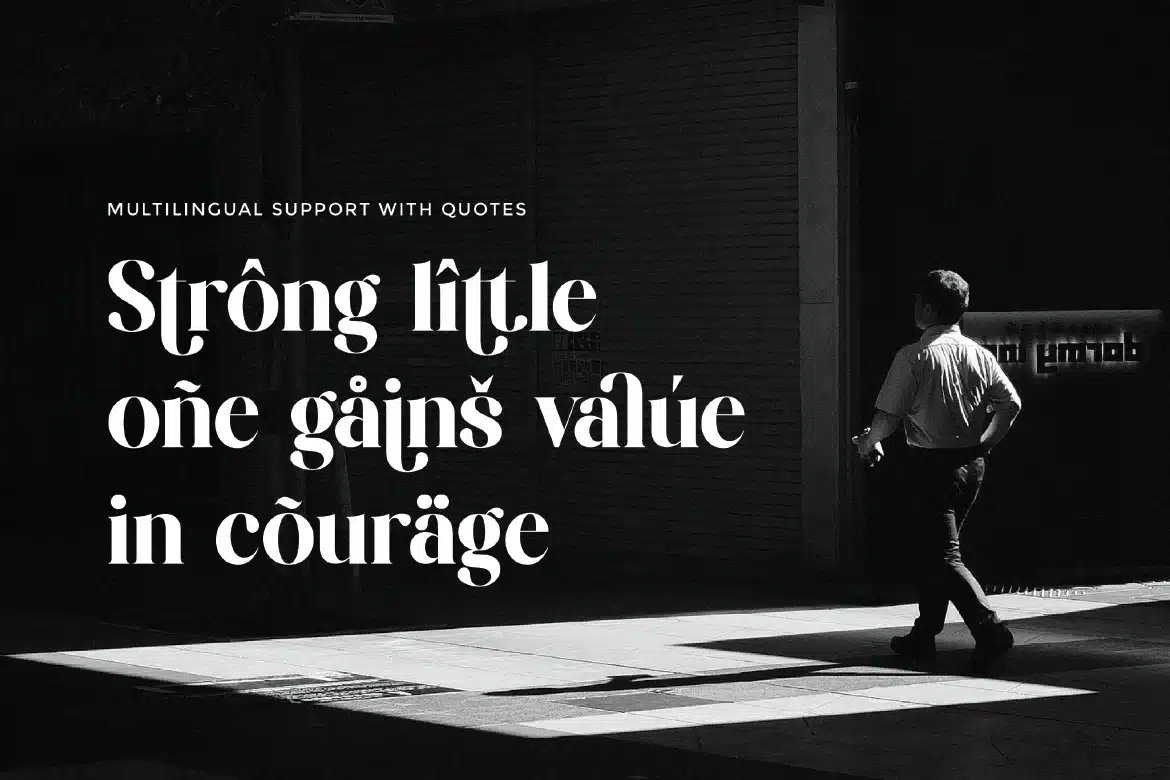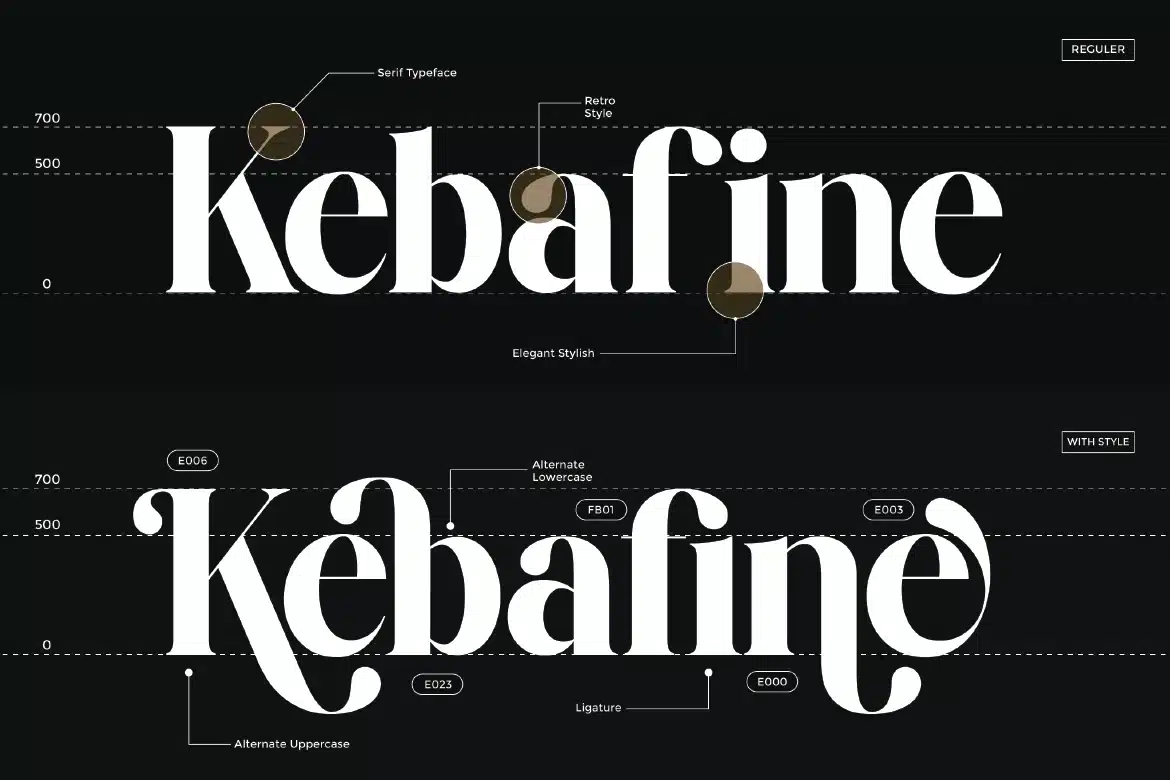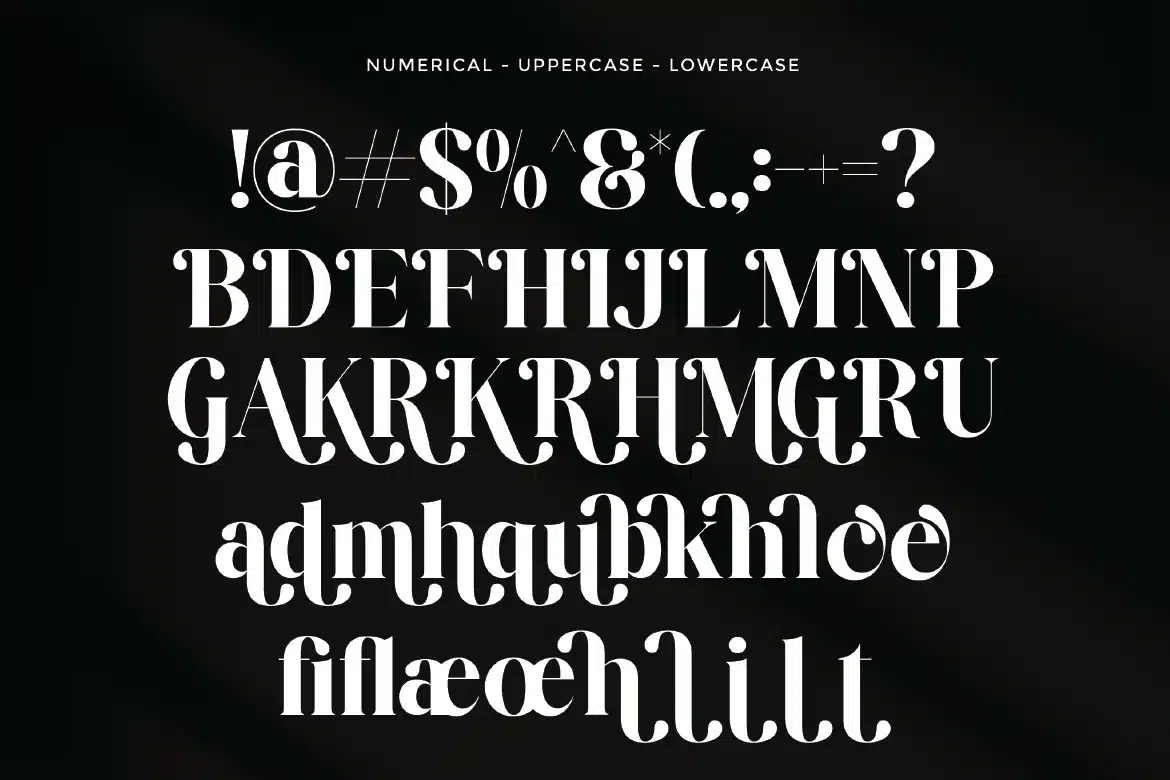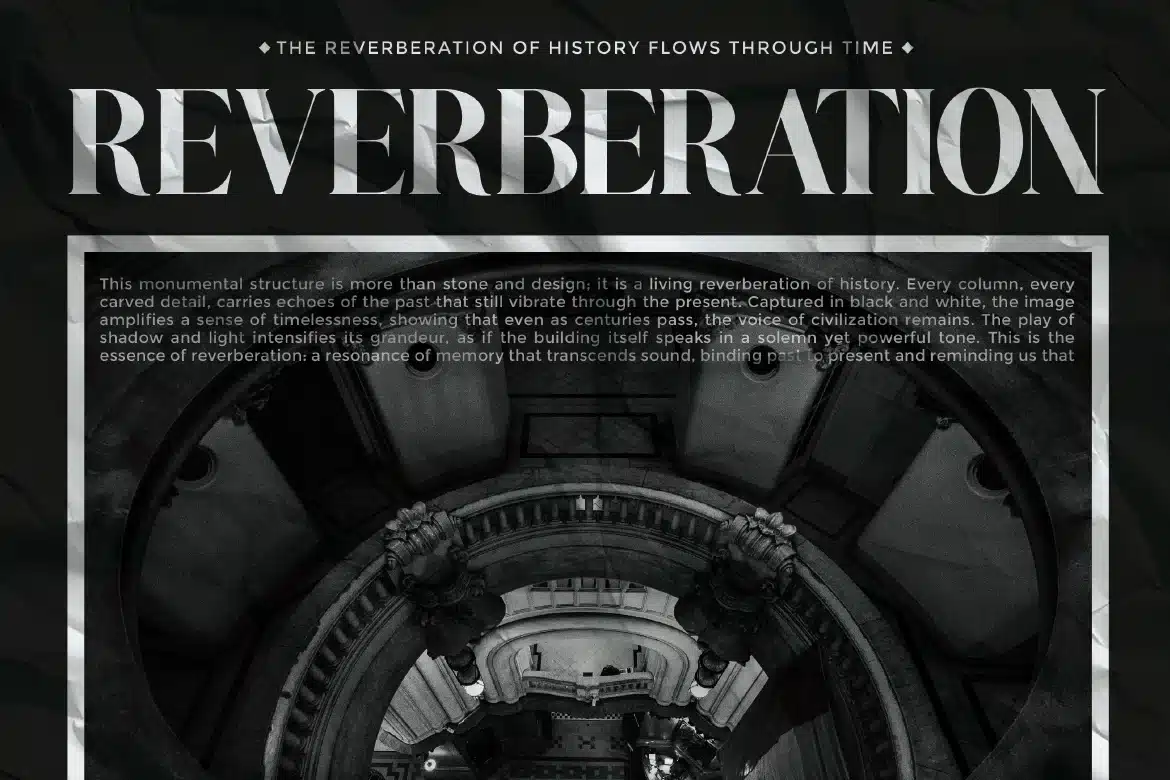
Retro Serif Font – Renshie
Retro Serif Font - Renshie
Renshie is a stylish retro serif typeface that brings back the charm of vintage design with a fresh modern twist. Featuring bold yet balanced letterforms, soft curves, and nostalgic details, Renshie creates a warm and eye-catching visual presence. Its retro personality makes it perfect for designs that want to stand out while still feeling elegant and timeless. Whether you’re working on branding, posters, or editorial layouts, Renshie delivers a distinctive look full of character and style.
Who Should Use Renshie?
Renshie is ideal for designers, creatives, and brands who love vintage aesthetics with a modern touch. It’s especially suited for projects that require a retro feel while maintaining clarity and stylish presentation.
Retro and vintage branding
Poster and promotional design
Editorial and magazine layouts
Logo and identity design
Packaging and product labels
Café and lifestyle branding
Social media visuals
Creative typography compositions